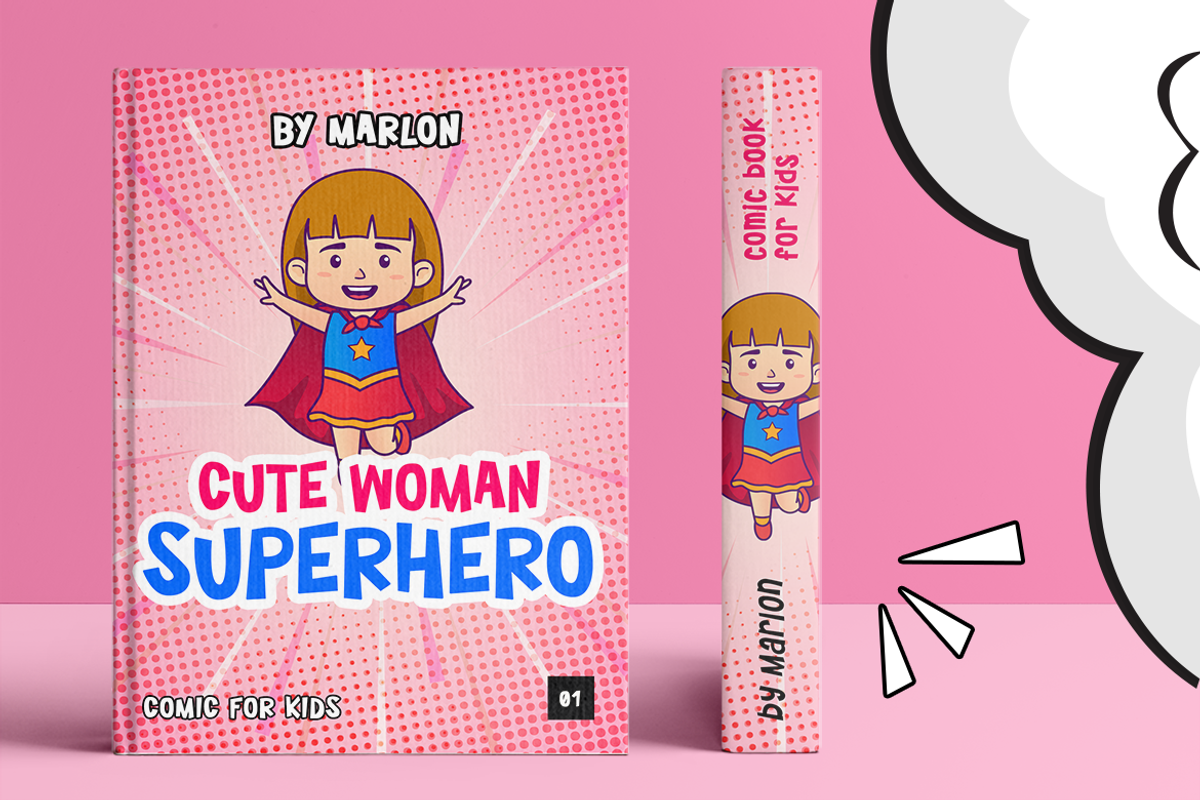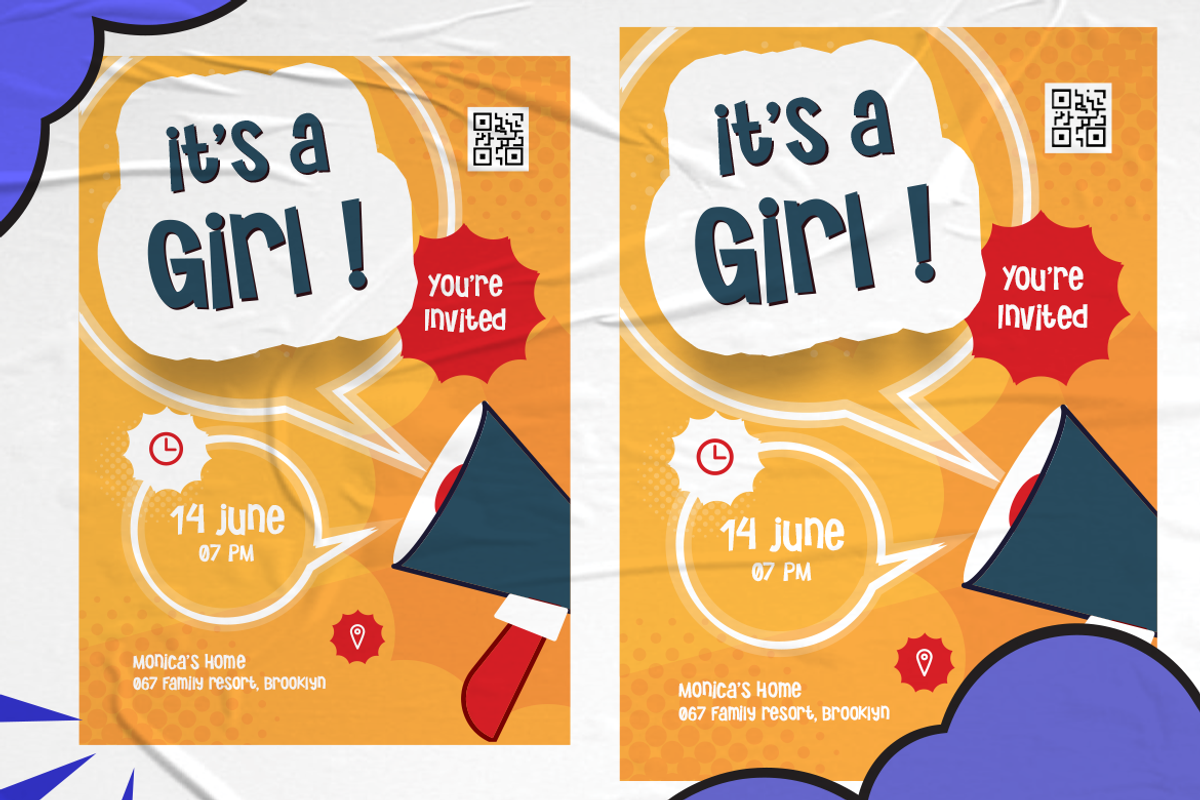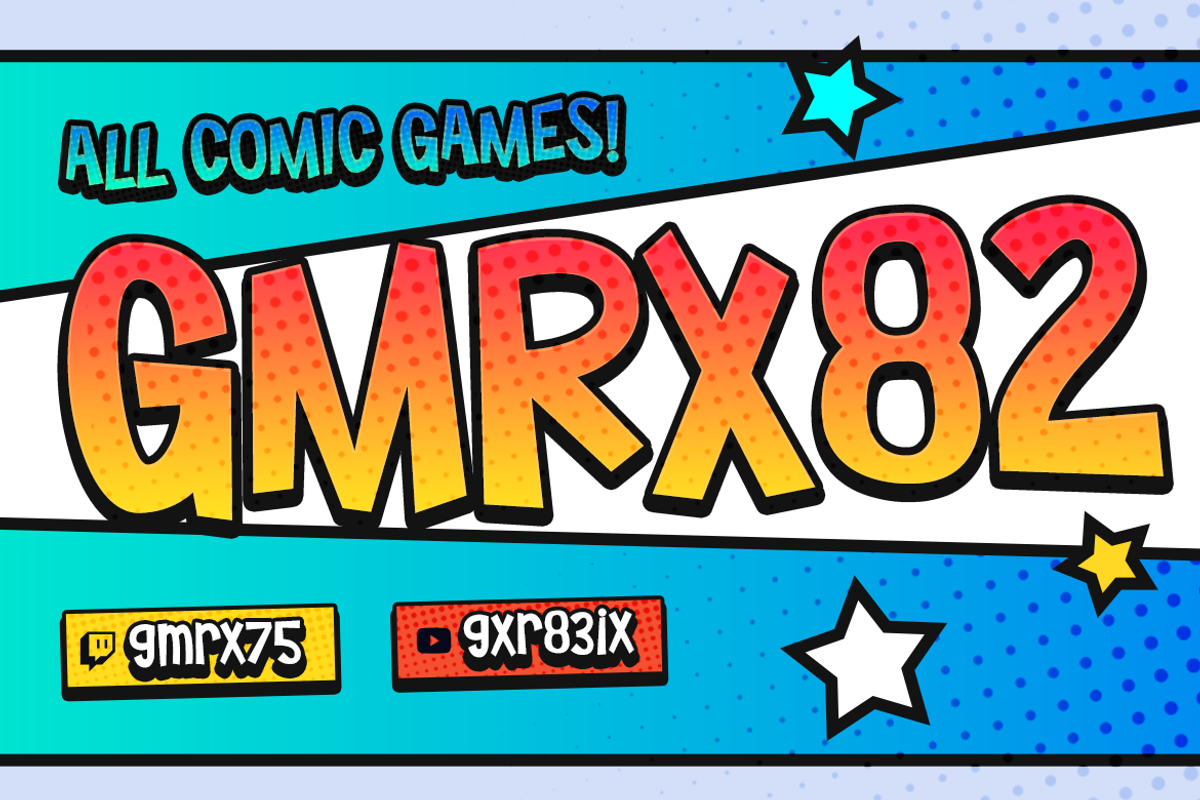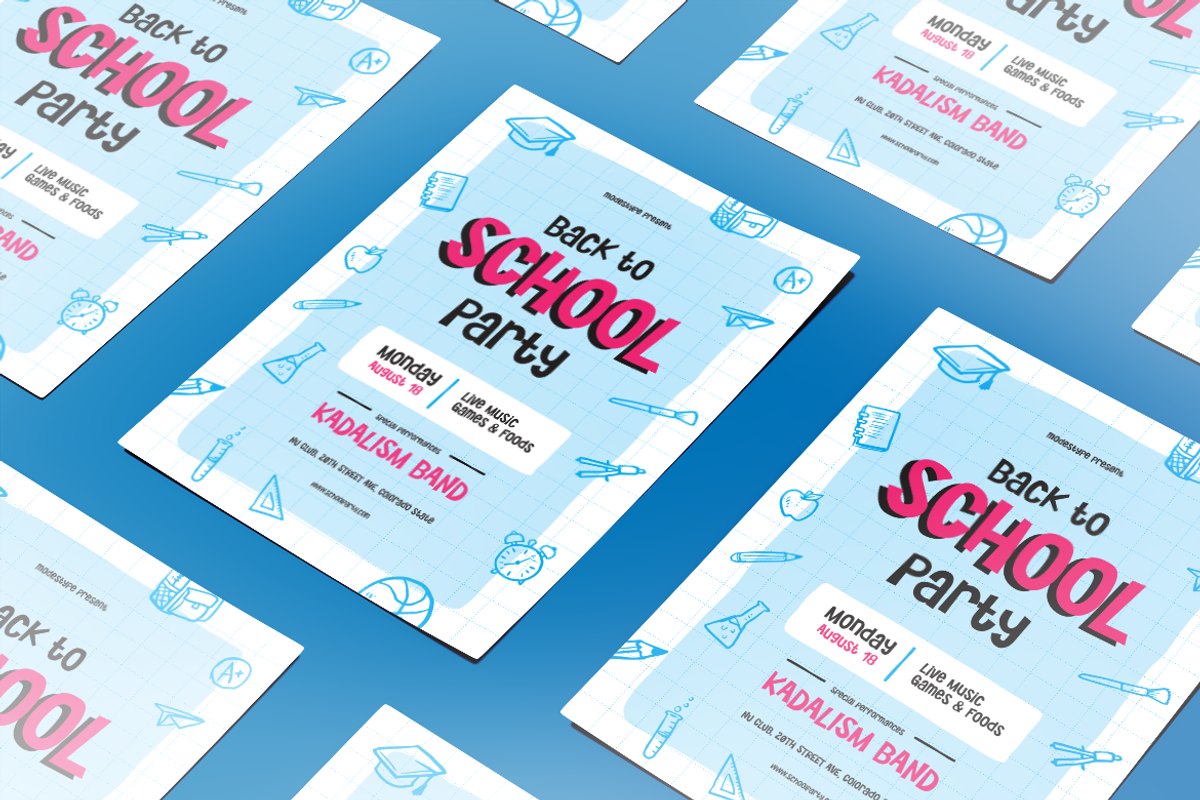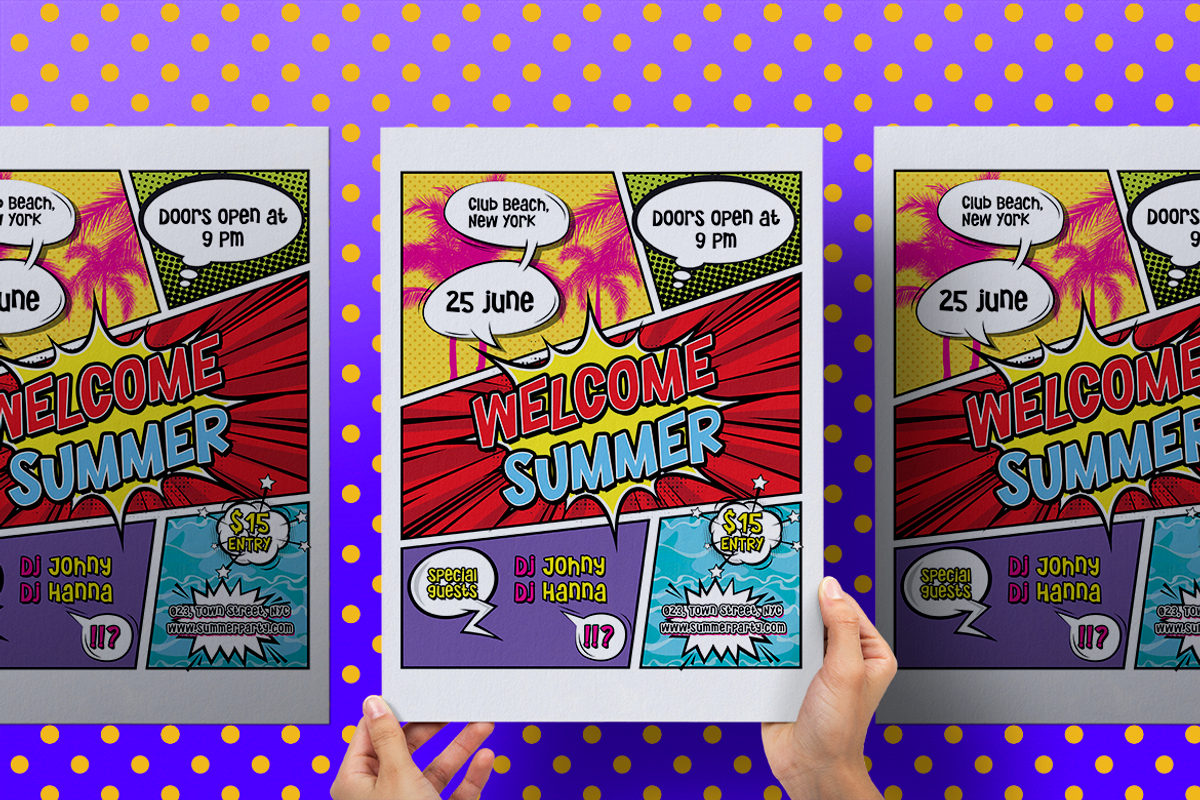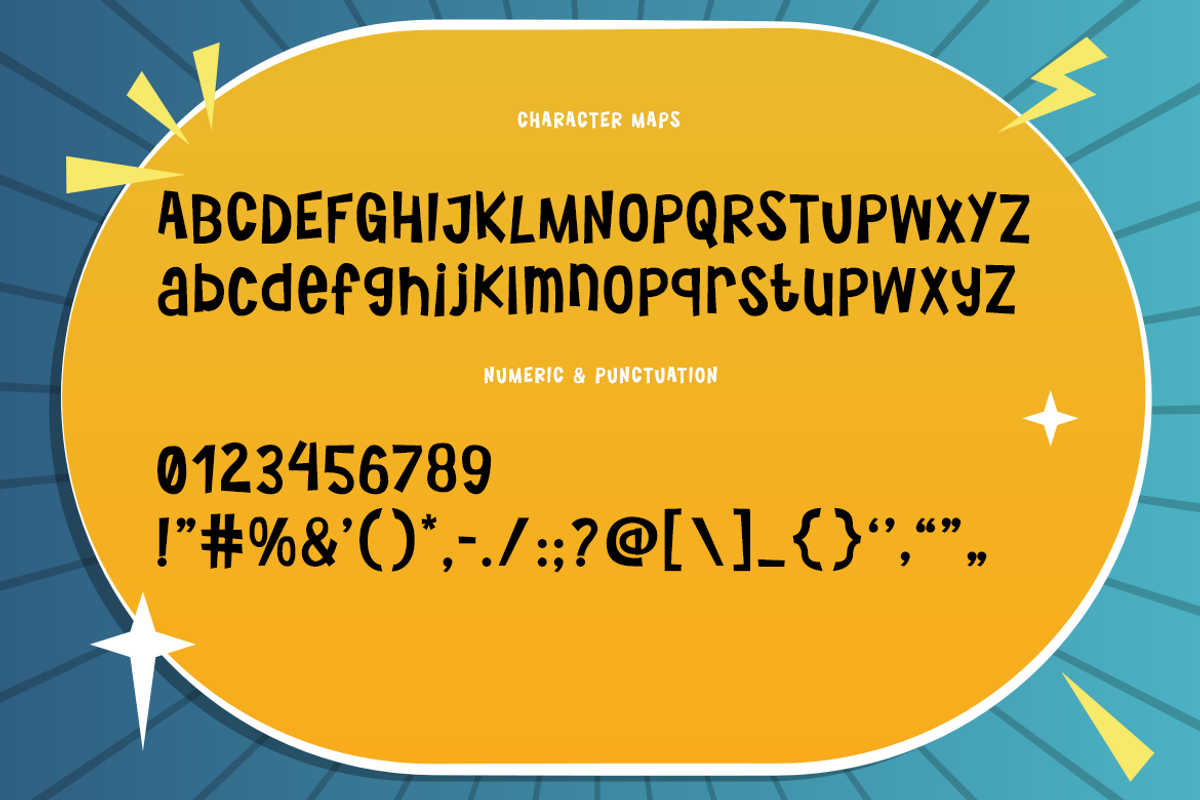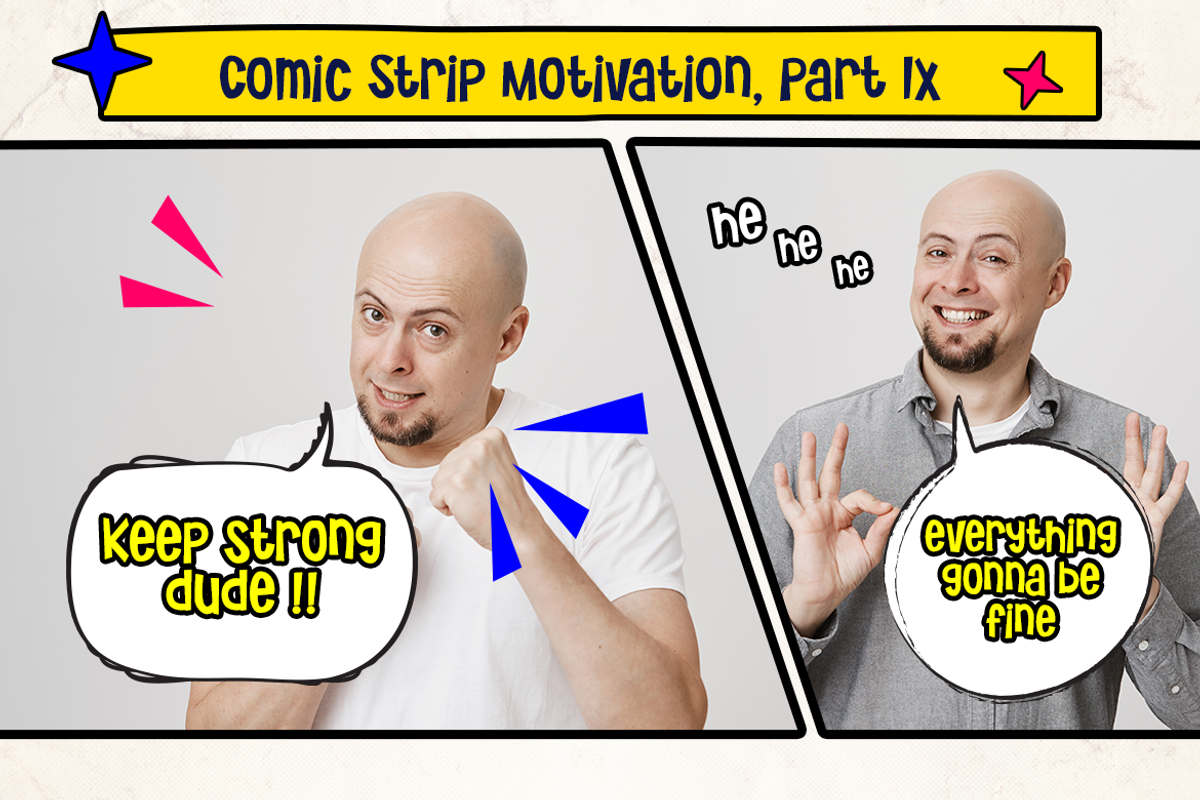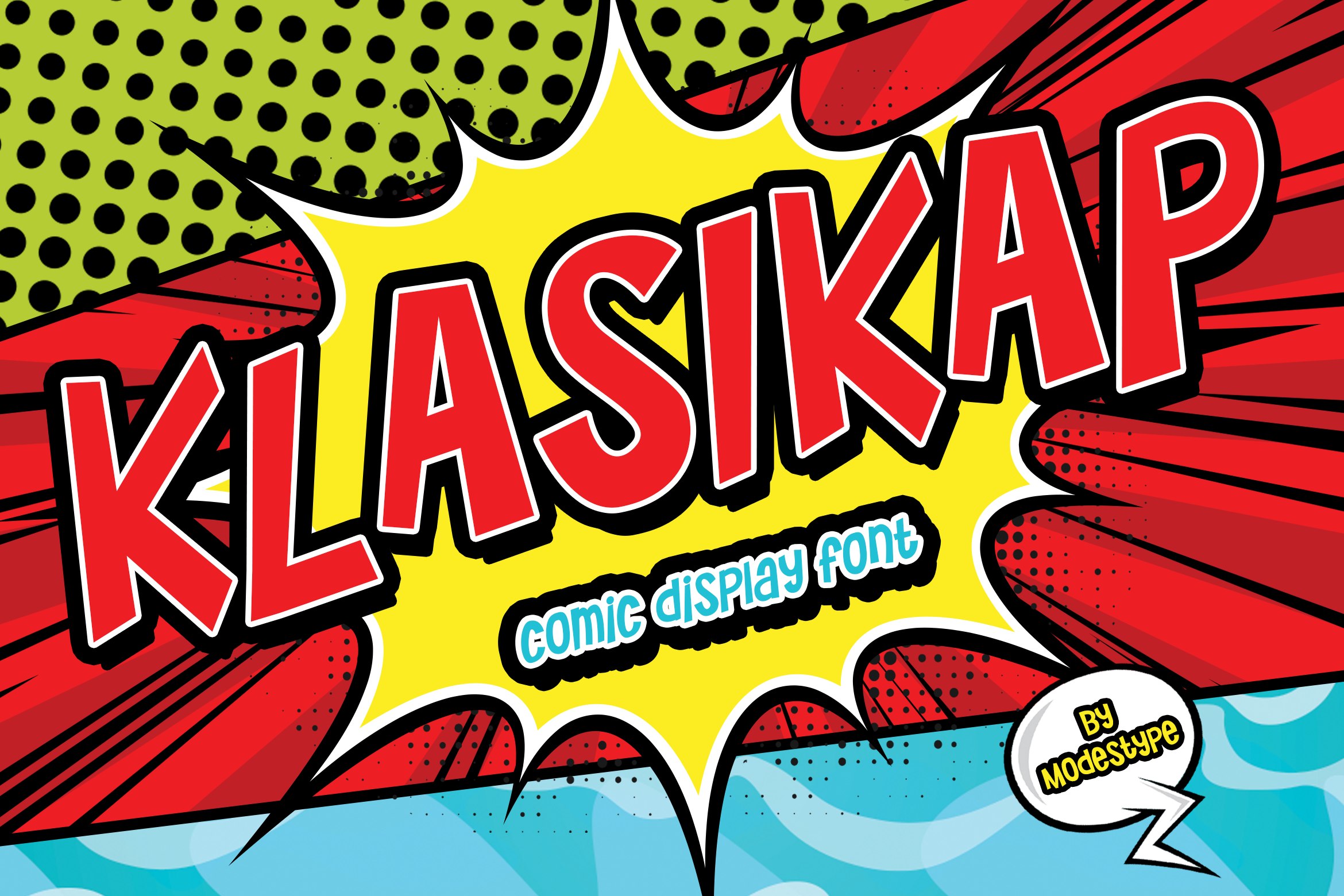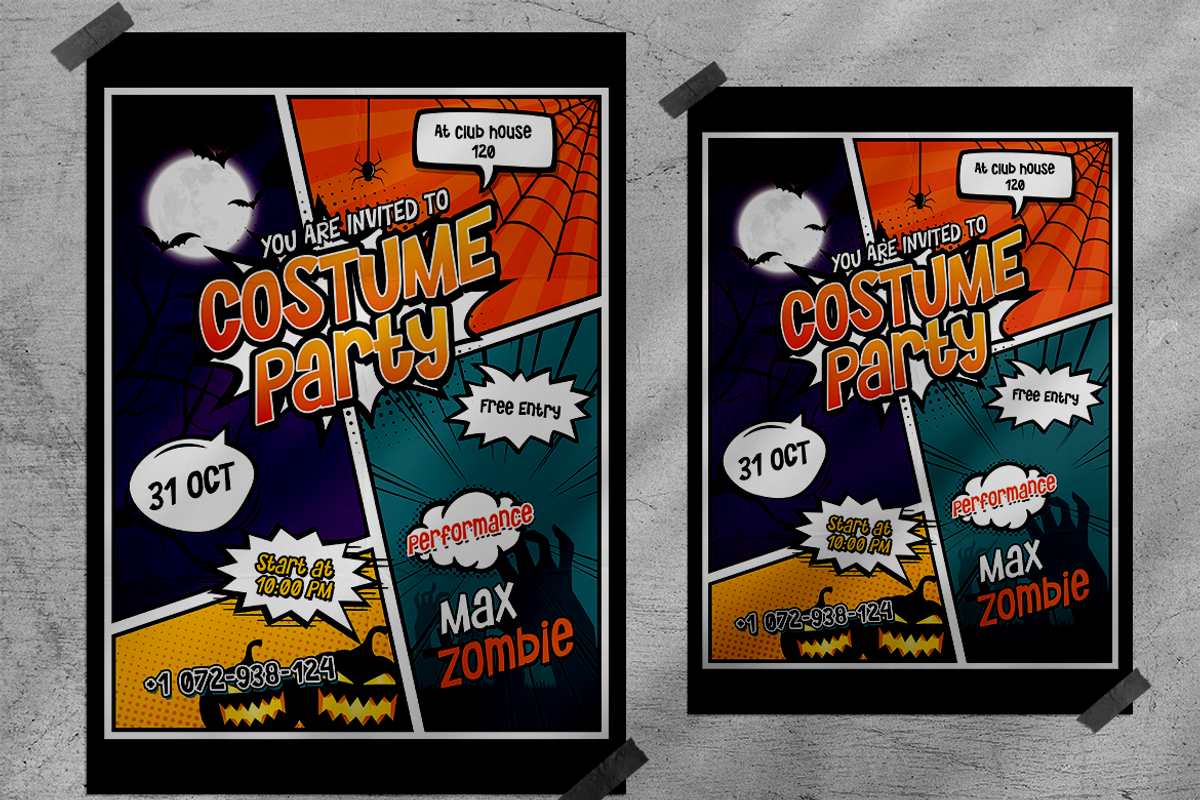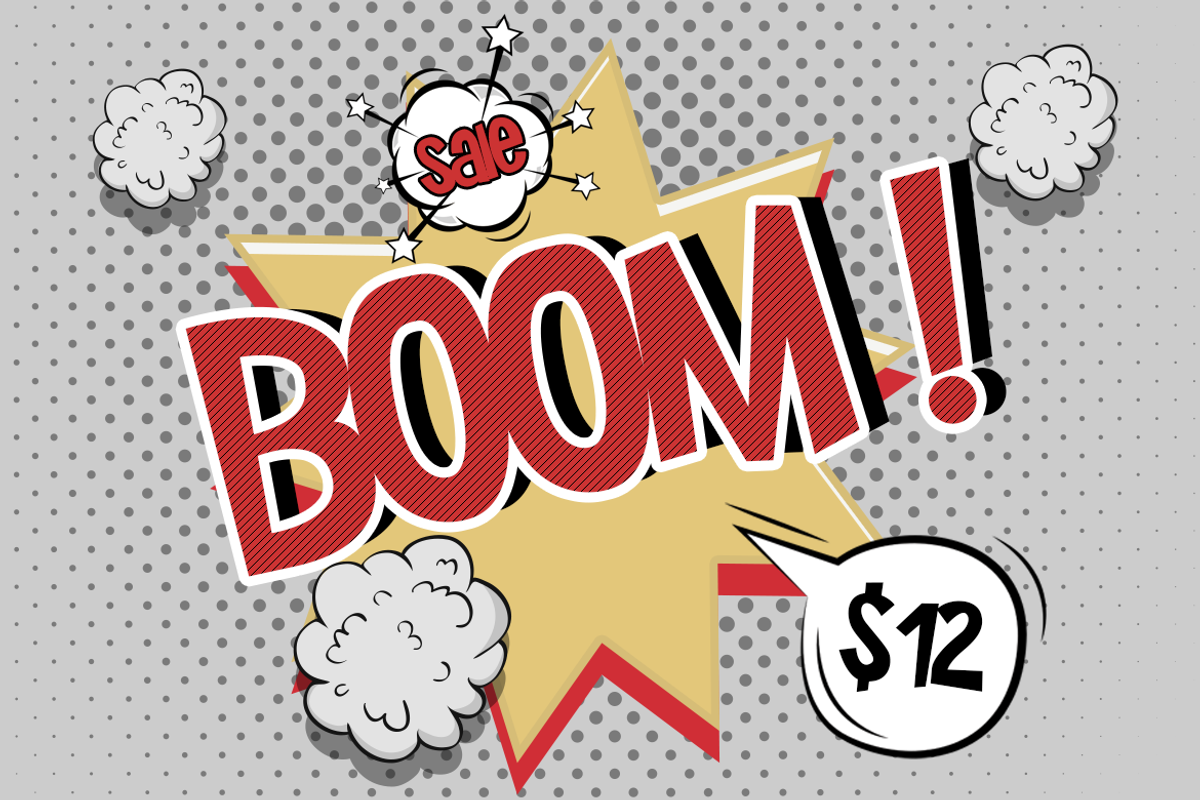
KLASIKAP - Awesome Comic Font
KLASIKAP - Comic Display Font
Comic style with a great punchline. BOOM ! Everything that is written by it will get instantly recognizable and grabbing attentions.
Suit perfect for comic style books market, online games, classic/ retro event posters, school supplies font, posters, movie titles, youtube covers, youtube thumbnails, social media page covers, and so on...